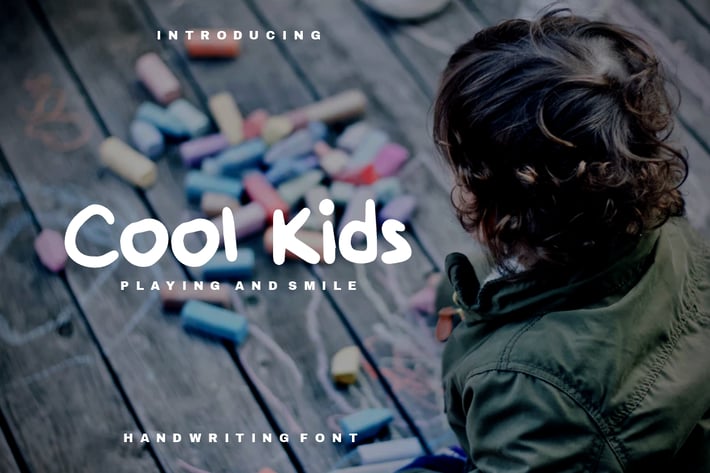
Cool Kids Font
Cool Kids Font This font is ideal for branding and decorate your any project. Also with their help, you can create a logo or beautiful frame for your home. Or just use for your small business, book covers, stationery, marketing, blog, magazines and more.